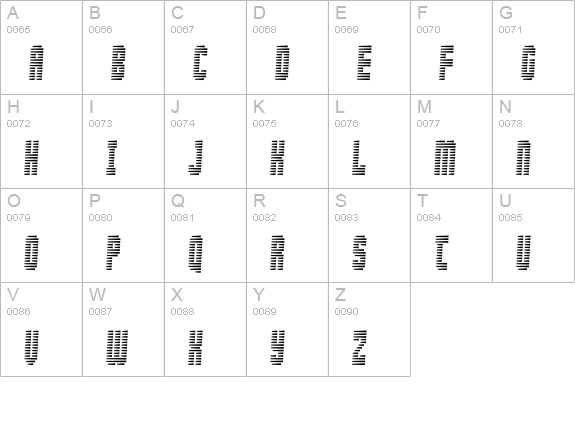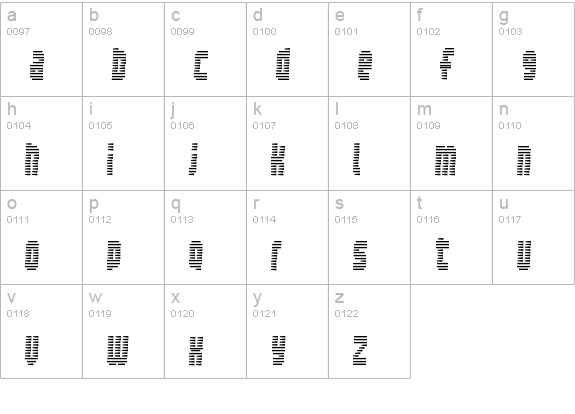
Maximum Security Font Details
Introducing Maximum Security font, a bold and commanding typeface that exudes strength and sophistication. With its sharp angles and solid lines, this font is perfect for conveying a sense of security and authority in your designs. Maximum Security is meticulously crafted to make a powerful statement while maintaining readability and clarity. The best part? Maximum Security font is available for free download at FontsMarket.com. Whether you're working on a logo, branding materials, or any other project that requires a strong and impactful font, Maximum Security is the perfect choice. Download it today and elevate your designs with this powerful and versatile typeface.